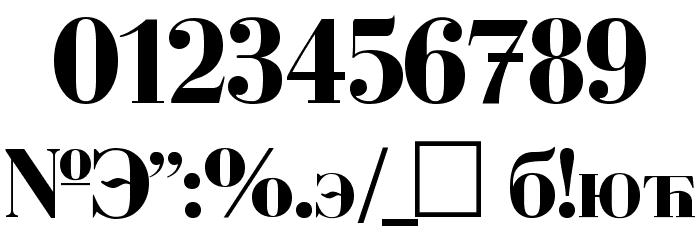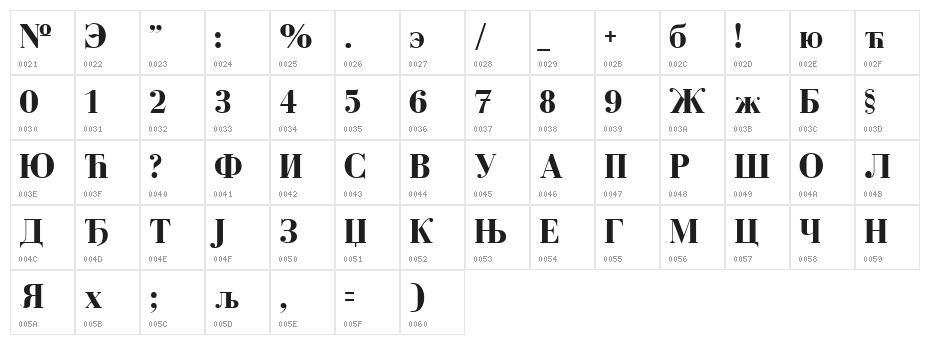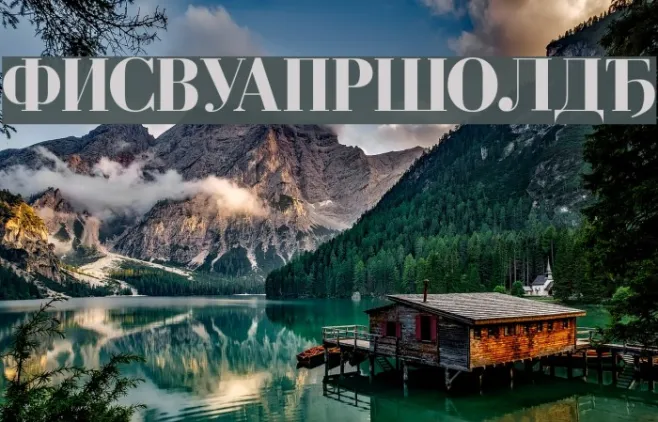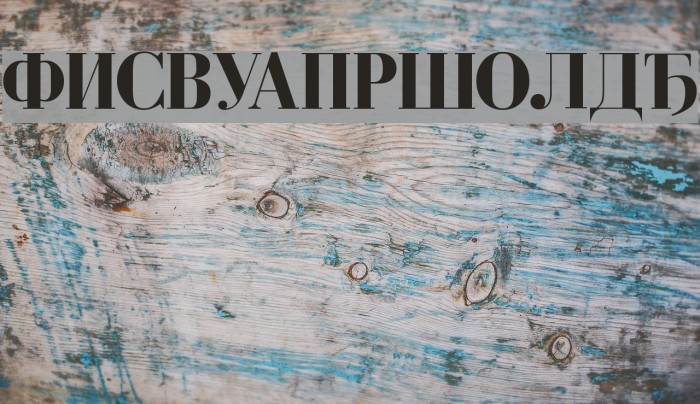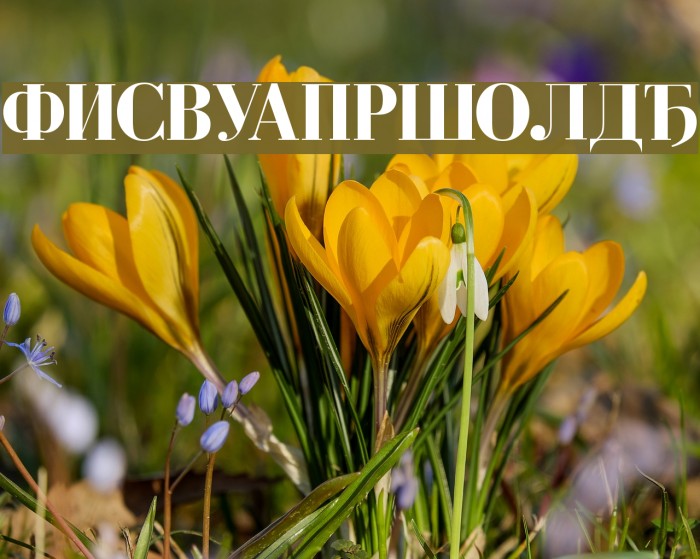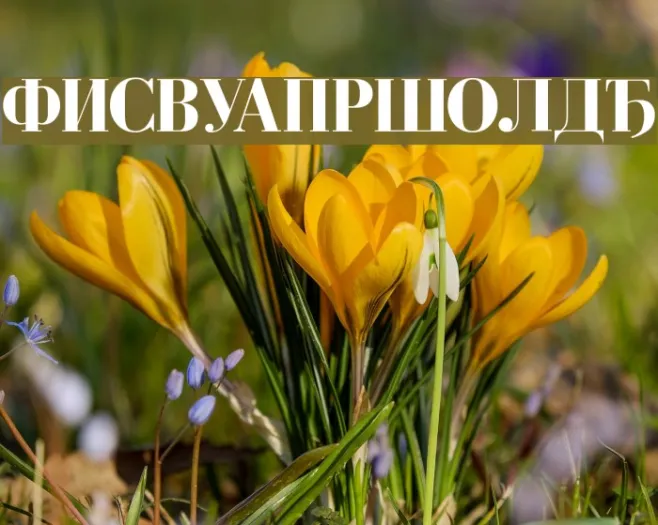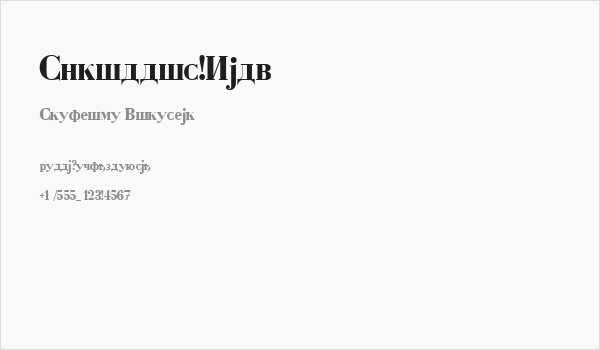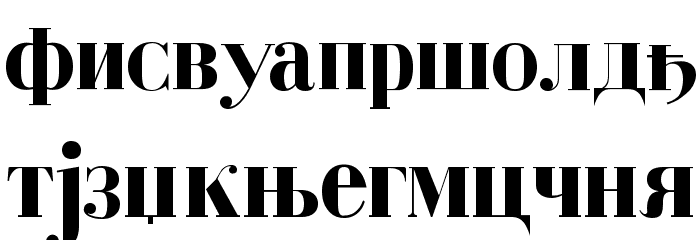
Cyrillic-Bold Font
Cyrillic-Bold Description
This font features a bold and striking design, characterized by its strong vertical emphasis and high contrast between thick and thin strokes. The serif elements are pronounced, adding a touch of elegance and sophistication. The Cyrillic characters are well-defined, maintaining clarity and readability. The numerals and special characters are consistent with the overall bold style, ensuring uniformity across different uses. This font is suitable for making impactful statements, with its bold presence and classic serif details.
| Proposed Projects | Ideal for use in headlines, posters, branding materials, and any project requiring a bold and sophisticated look. |